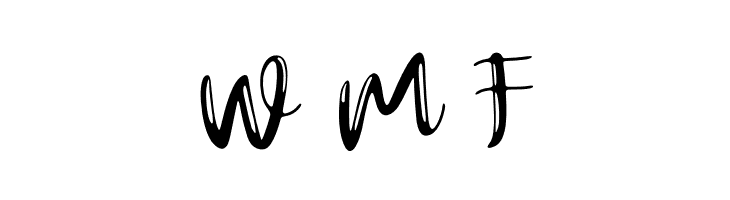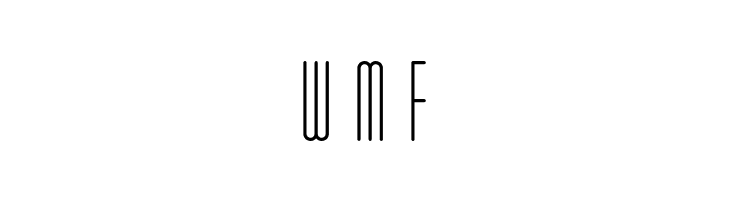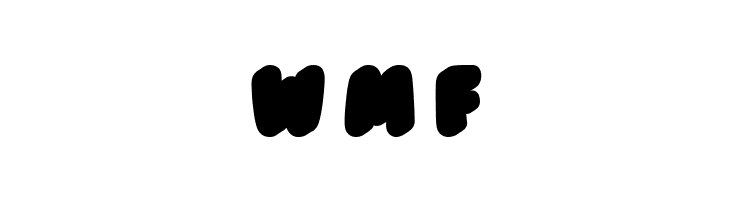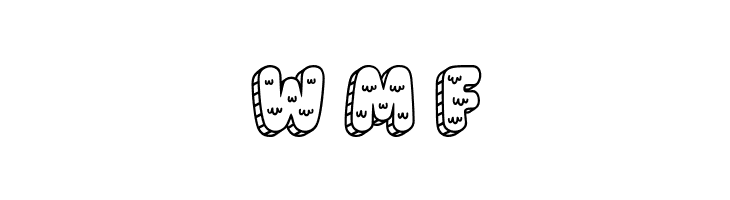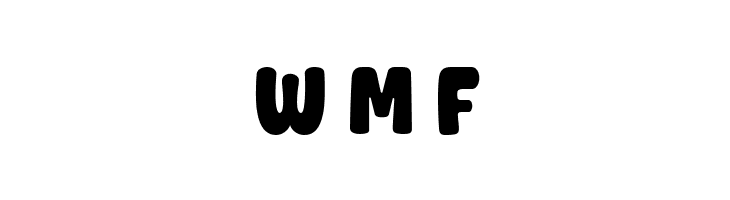
A bold, flowing script font with a handwritten, artistic style.
A tall, narrow font with a modern and sleek design.
A bold, decorative font with a playful dripping effect.
A playful, bold font with rounded, bubble-like characters.
A playful, bubbly font with a dripping texture and outlined characters.
A playful, bold font with rounded edges and a solid, cohesive design.
A bold, geometric font with playful and dynamic shapes.
A bold, playful font with rounded, bubble-like characters.
A playful, bubbly font with rounded, cartoonish characters.
A bold, playful font with rounded edges and a retro vibe.